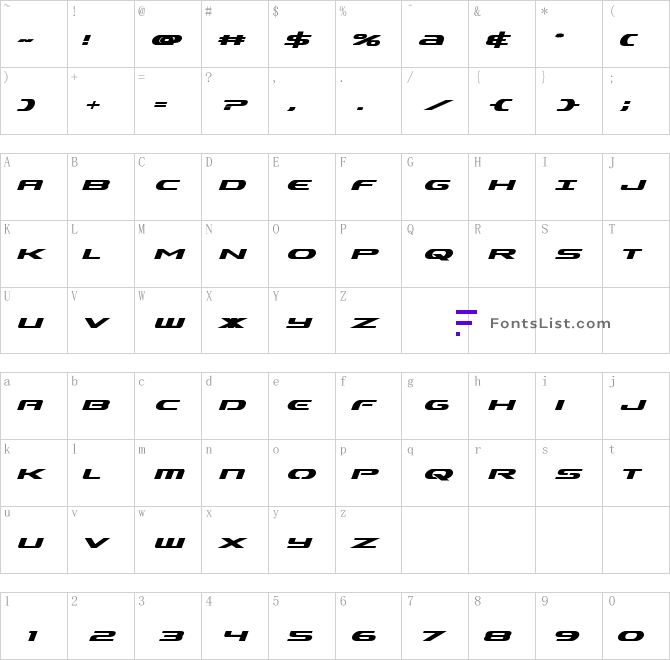
- Font Name:Alpha Men Bold Italic
- Subfamily:Alpha Men Bold Italic: 2014
- Full Name:Alpha Men Bold Italic
Alpha-Men-Bold-Italic.ttf is a very beautiful artistic font, Alpha-Men-Bold-Italic.ttf is widely used in the design and printing of various books and pictures,Alpha-Men-Bold-Italic.ttf has a strong visual impact,Alpha-Men-Bold-Italic.ttf is a commonly used font in newspapers, magazines and books, and is used in posters, e-commerce Poster design, store design, logo design, font design and other fields.Alpha-Men-Bold-Italic.